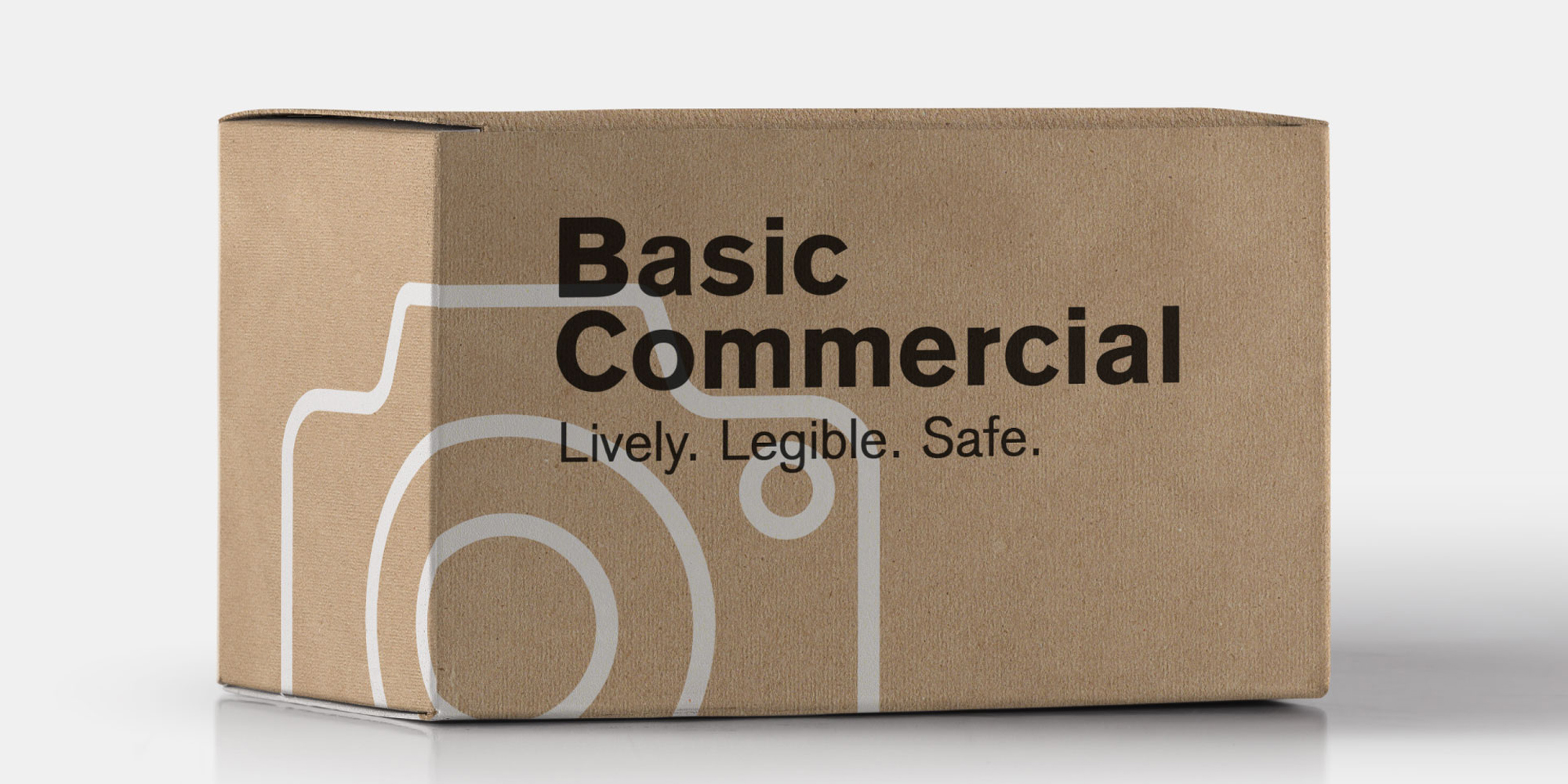
Basic Commercial Font is a clean, no-nonsense sans-serif typeface that delivers clarity and functionality across all kinds of design projects. Ideal for corporate branding, business documents, websites, and editorial layouts, it's built to communicate with ease and efficiency.
What makes Basic Commercial Font Free Download so exciting is its timeless neutrality. It doesn’t scream for attention—but that’s its superpower. It lets your content shine while maintaining a professional and trustworthy tone.
The Basic Commercial Font family typically includes multiple weights like Light, Regular, Bold, and Italic, giving designers the flexibility to create solid hierarchies and polished layouts.
Whether you're designing business cards, presentations, reports, or corporate websites, Basic Commercial Font Free Download helps you stay sharp, clean, and confidently understated.